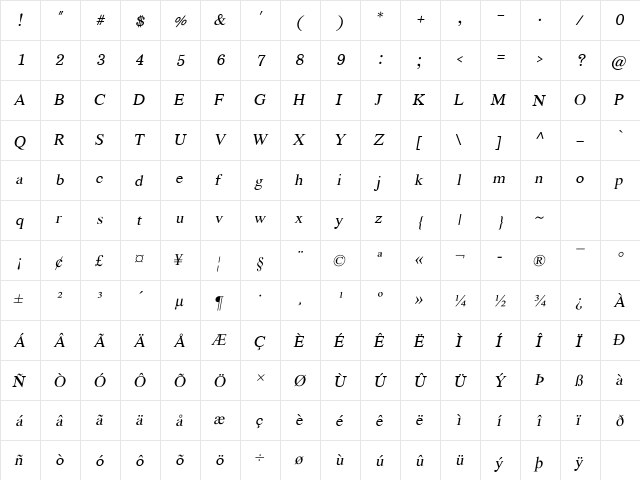
EucrosiaUPC Italic
Design Context for EucrosiaUPC Typeface
EucrosiaUPC is a composed and adaptable typeface that performs quietly and consistently across a wide range of design contexts. The dynamic lean of this cut emphasises speed and emphasis in any layout.
Pro Tip: Try EucrosiaUPC for annotation and caption copy alongside an upright companion — the contrast in angle creates a dynamic but ordered typographic system.